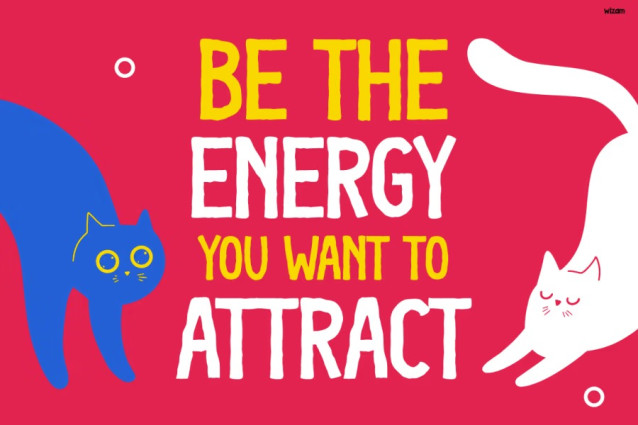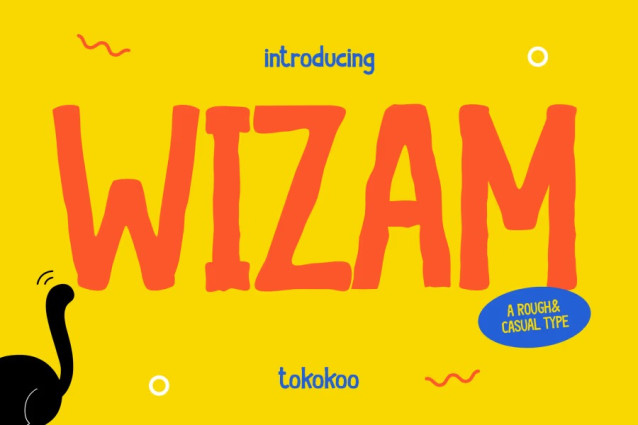
Wizam Font is where imagination and creativity collide! This delightful typeface bursts with personality, bringing a wave of color, laughter, and warmth to every design it touches. With its hand-drawn style, slightly irregular forms, and expressive movement, WIZAM feels spontaneous yet thoughtful. Each curve tells a story, while every line adds character and energy. As a result, your projects instantly gain a friendly and inviting tone that draws people in.
Moreover, the font’s bold and rounded edges make it easy to read, even from a distance. Whether you’re designing posters, packaging, or educational materials, WIZAM gives your work a cheerful and approachable vibe. Its imperfect yet balanced shapes evoke a sense of playfulness—perfect for modern brands that want to stay fun, youthful, and original. Additionally, the bright colors and casual lettering style help it stand out in both print and digital media, ensuring your message pops with charm and confidence.